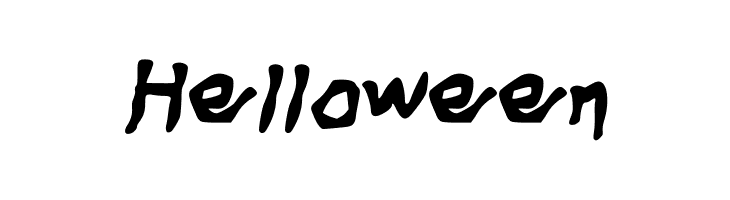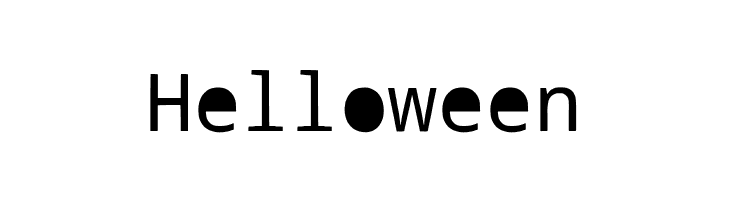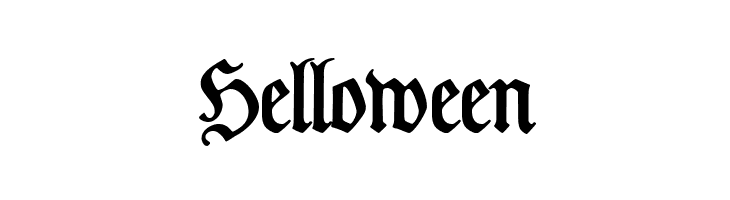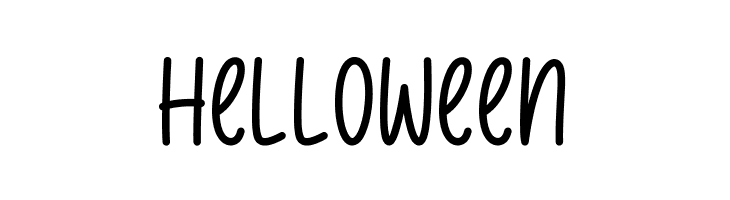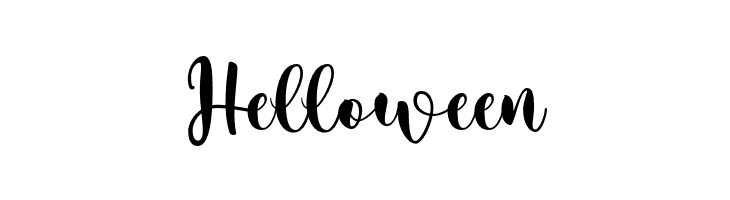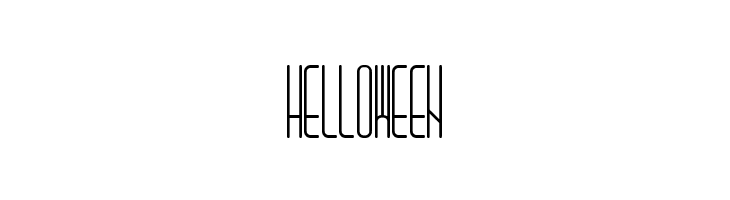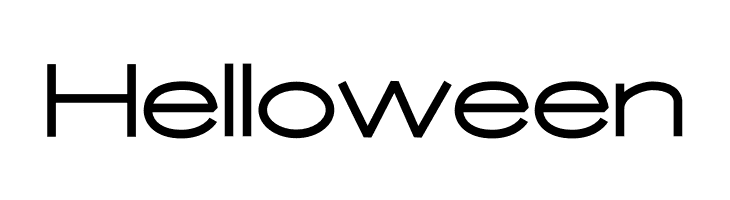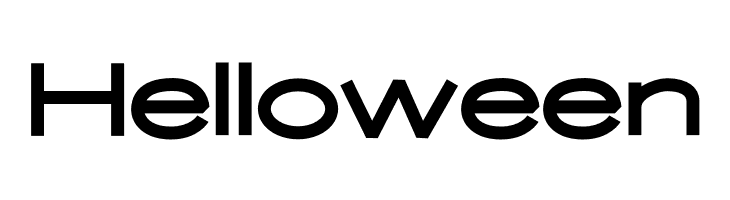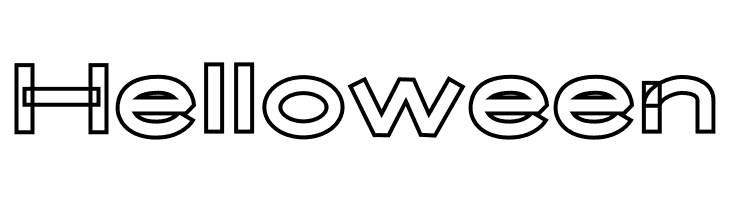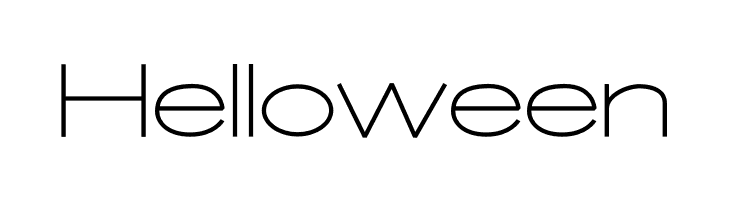
• DesiWonderland
A playful, handwritten font with a whimsical and artistic style.
• Desk Graffiti
A bold, graffiti-inspired font with angular, geometric letterforms.
• DESKETCH
A playful, hand-drawn font with a casual and friendly vibe.
• Deskomora
• Deslucida FFP
• DesMalersFraktur
A traditional Blackletter font with ornate, medieval-inspired design.
• DesMalersFraktur
A decorative Blackletter font with intricate and ornate gothic design.
• DESMINORE
A bold, hand-drawn font with a sketch-like texture and artistic flair.
• Desmond
• desmonthe
A bold, flowing script font with a modern and decorative style.
• desmonthe
A lively, expressive script font with bold, flowing strokes.
• Desolation-Regular
A modern, elongated font with a sleek and futuristic design.
• Desolator
A sleek, modern font with geometric structure and clean lines.
• Desolator Bold
A bold, modern sans-serif font with clean, geometric lines and balanced spacing.
• Desolator Framework
A geometric, double-line font with a modern and dimensional style.
• Desolator Light
A sleek, modern typeface with thin, geometric lines and a minimalist design.
• Desolator Outline